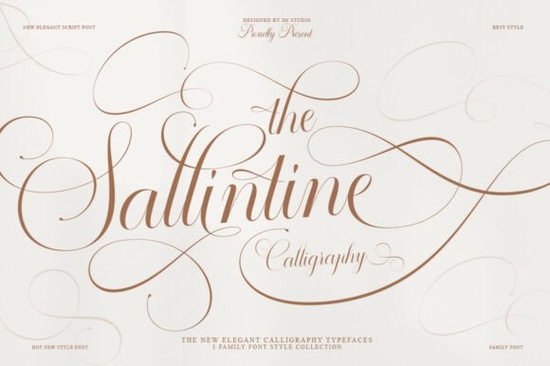
When it comes to adding a touch of elegance and sophistication to your design projects, the Sallintine Font is a perfect choice. This calligraphy typeface combines the fluidity of classic Copperplate script with the modern flair of luxury branding, making it ideal for high-end wedding invitations, boutique winery identities, and more.
What Makes Sallintine Font Stand Out?
The Sallintine Font is designed to capture a “fluid-and-flawless” soul, featuring exquisitely delicate strokes and romantic swashes. Its dramatic, looping tails add a unique, aristocratic personality that sets it apart from other fonts. Whether you're designing for a high-end event or creating a luxurious brand identity, Sallintine offers the perfect blend of grace and glamour.
Perfect for High-End Design Projects
One of the key strengths of the Sallintine Font is its versatility in high-end design. Here are some specific use cases where this font can truly shine:
- Wedding Invitations: The delicate and romantic nature of Sallintine makes it an excellent choice for elegant wedding invitations. It adds a touch of class and sophistication that will make any invitation stand out.
- Boutique Winery Identities: For a boutique winery, the Sallintine Font can help create a luxurious and refined brand identity. Its fluid and flawless design complements the premium quality of fine wines.
- Luxury Cosmetics Packaging: In the world of luxury cosmetics, packaging is everything. Sallintine's graceful and glamorous style can enhance the overall aesthetic of your product, making it more appealing to discerning customers.
- Social Media Headers: If you're looking to make a statement on social media, Sallintine can help you create high-impact headers that exude grace and elegance. It’s perfect for brands that want to project a sophisticated image.
How Does Sallintine Compare to Other Calligraphy Fonts?
While there are many calligraphy fonts available, Sallintine stands out with its unique combination of classic and modern elements. Here’s how it compares to some other popular options:
- Sweetica Font: Sweetica is another beautiful calligraphy font, but it has a more whimsical and playful feel. If you prefer something a bit more lighthearted, Sweetica might be a good alternative.
- Reflect Handwritten Font: Reflect is a more casual and handwritten-style font, which can be great for a more relaxed and personal touch. For a more formal and elegant look, Sallintine is the way to go. You can check out Reflect if you need a more casual option.
- Wedding 10 Bundle: If you’re working on multiple wedding-related projects, the Wedding 10 Bundle offers a variety of fonts to choose from. However, Sallintine provides a more focused and refined option for high-end weddings.
- Dellanor Script Font: Dellanor is a stylish and elegant script font, but it has a slightly different character. If you’re looking for a font with a similar level of elegance but a different style, Dellanor is worth considering.
- Cralione Script Font: Cralione is a versatile and dynamic script font, but it has a more energetic and bold feel. For a more subtle and refined elegance, Sallintine is the better choice. You can explore Cralione if you need a bolder option.
Where Can I Use Sallintine Font?
The Sallintine Font is incredibly versatile and can be used in a wide range of design projects. Here are some additional ideas:
- Stationery and Greeting Cards: Add a touch of elegance to your stationery and greeting cards with Sallintine. It’s perfect for creating personalized and sophisticated designs.
- Book Covers and Titles: For book covers and titles, Sallintine can help you create a luxurious and eye-catching design that draws readers in.
- Branding and Logos: If you’re working on a brand identity or logo, Sallintine can help you convey a sense of luxury and refinement. It’s ideal for high-end brands and businesses.
- Print-on-Demand Products: For print-on-demand sellers, Sallintine can be a valuable asset. Use it to create high-quality, elegant designs for t-shirts, mugs, and other products.
Final Tips for Using Sallintine Font
To get the most out of the Sallintine Font, keep these tips in mind:
- Use It Sparingly: While Sallintine is a beautiful font, it’s best used sparingly to maintain its impact. Use it for headings, titles, and key design elements.
- Pair It Wisely: Pair Sallintine with simpler, more legible fonts for body text. This will ensure that your overall design remains balanced and easy to read.
- Experiment with Colors: Try different color combinations to see what works best with Sallintine. Soft, muted colors often complement its elegant and refined style.
By following these tips and exploring the various ways you can use the Sallintine Font, you can create stunning and sophisticated designs that leave a lasting impression.